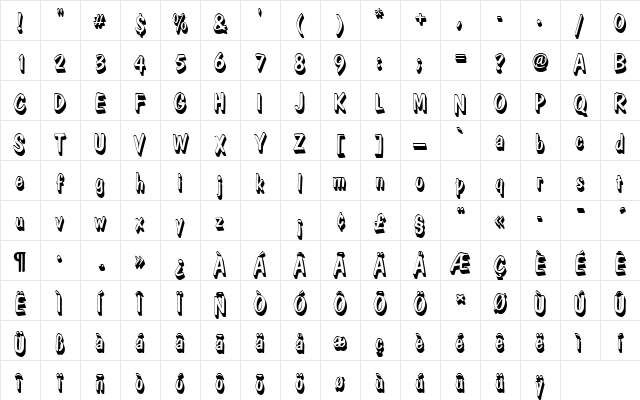
DomCasualDRegSh1 Regular
Complete DomCasualDRegSh1 Regular glyph index. Displaying only characters natively supported by DomCasualDRegSh1 Regular font.
Design Context for DomCasualDRegSh1
DomCasualDRegSh1 is a composed and adaptable typeface that performs quietly and consistently across a wide range of design contexts.